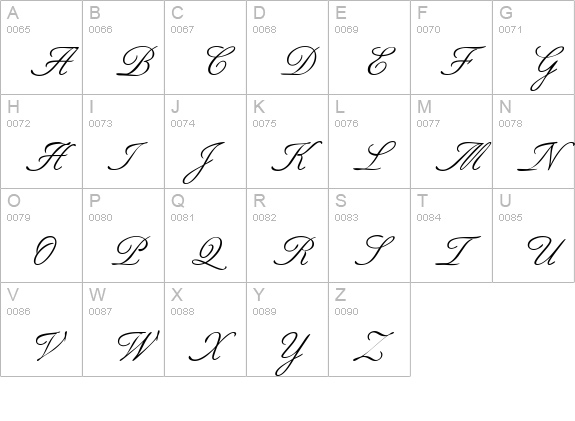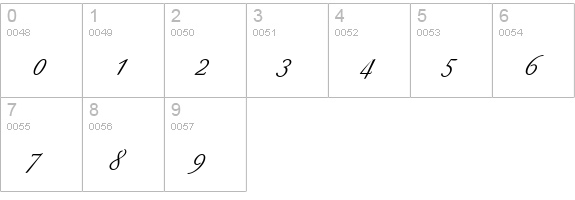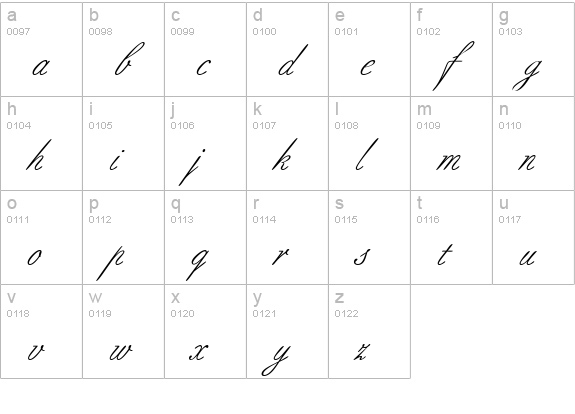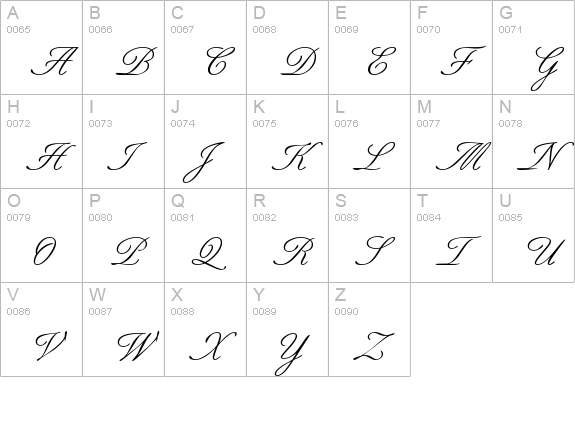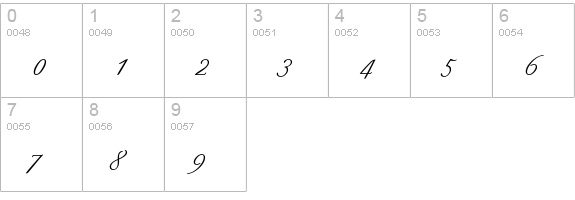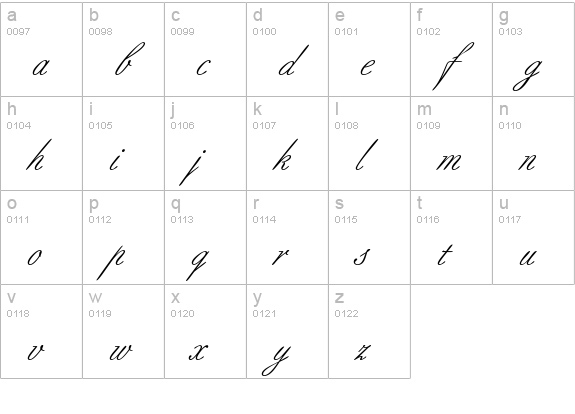
AllureScript Font Details
Introducing AllureScript font - a captivating and elegant typeface that exudes charm and sophistication. With its graceful curves and stylish flourishes, AllureScript is perfect for adding a touch of luxury to your designs. This versatile font is ideal for a wide range of projects, from wedding invitations to branding materials. And the best part? AllureScript is completely free to download at FontsMarket.com. So go ahead and elevate your designs with this stunning font today!